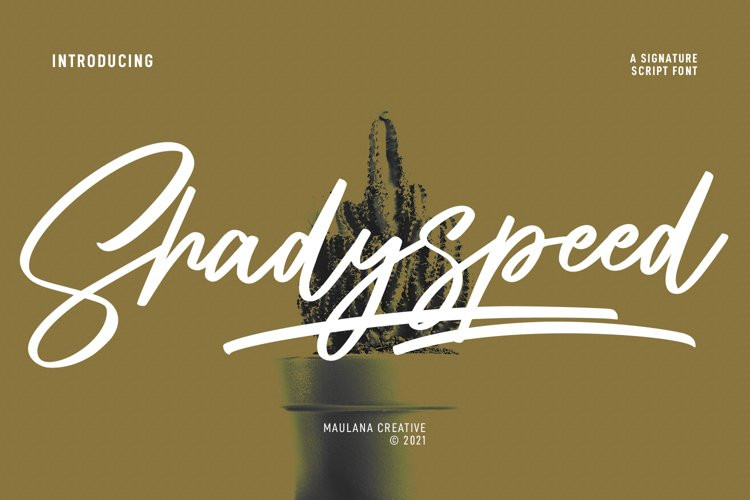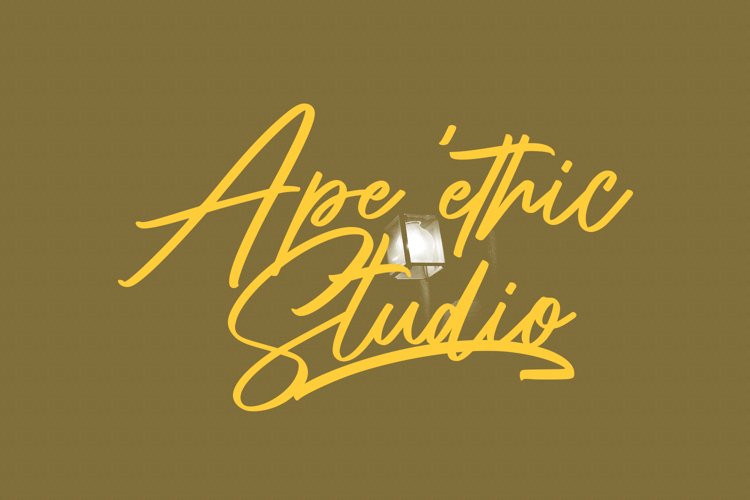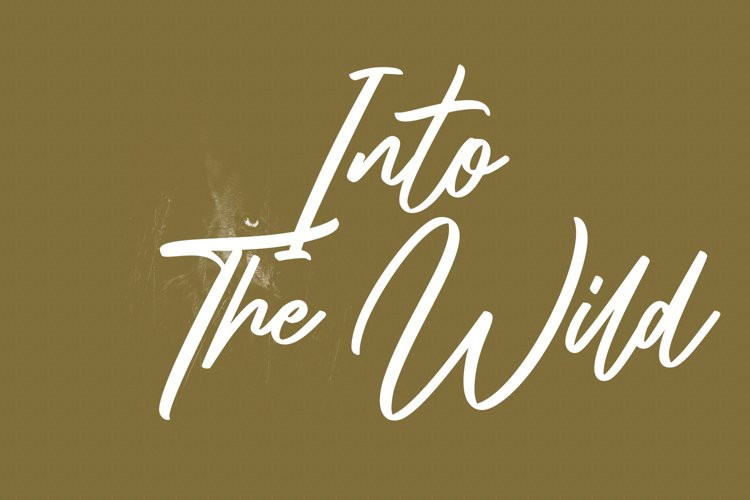
Shadyspeed Font
Shadyspeed is a signature script font. With contrast regular stroke, fun character with a bit of ligatures and has a two files lowercase alternates and swashes. To give you an extra creative work. Shadyspeed font support multilingual more than 100+ language. This font is good for logo design, Social media, Movie Titles, Books Titles, a short text even a long text letter and good for your secondary text font with sans or serif. Make a stunning work with Shadyspeed font.